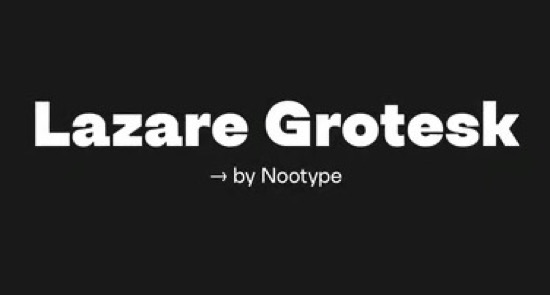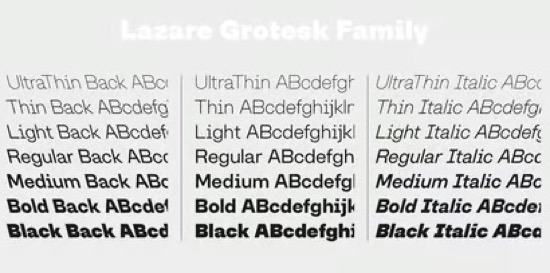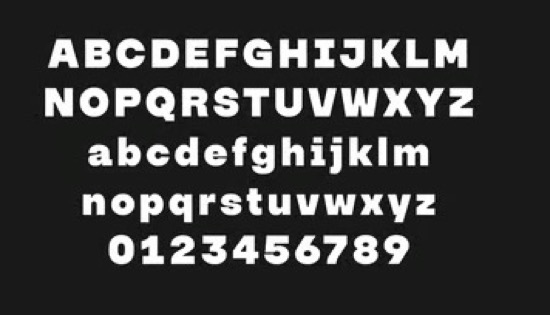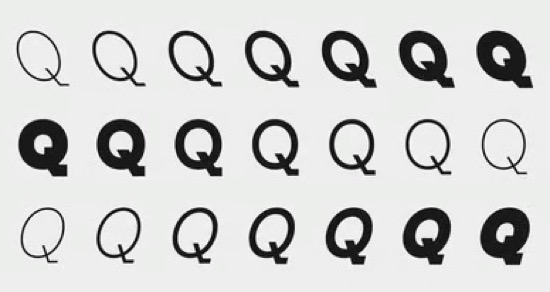
Lazare Grotesk Font Family
Lazare Grotesk is a versatile and neat sans serif font family was designed by Nico Inosanto and published by Nootype. Lazare Grotesk contains 21 styles and family package options. A dynamic and strong new Grotesk, Lazare Grotesk is a family of 21 styles. The family comprises seven weight, from UltraThin to Black, with not only italic but with backslanted too, which allows to make fun and cool layout. In the black weight the font is particularly contrasted.
This family contains many OpenType features, such as Alternates, Proportional Figure, Tabular Figures, Old Styles Figures, Numerators, Superscript, Denominators, Scientific Inferiors, Subscript, Ordinals and Fractions, which make that typeface useful in various projects. The fonts have an extended characters set to support Central, Eastern and Western European languages.